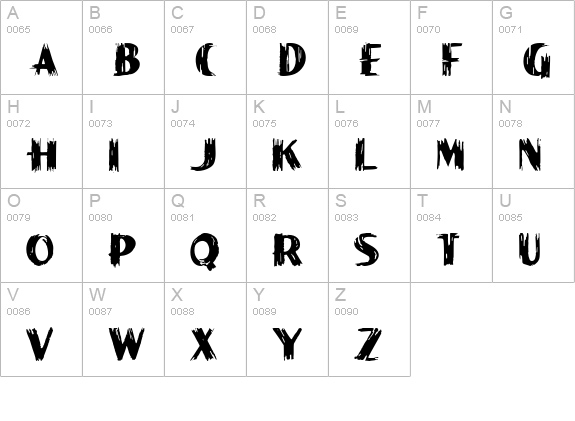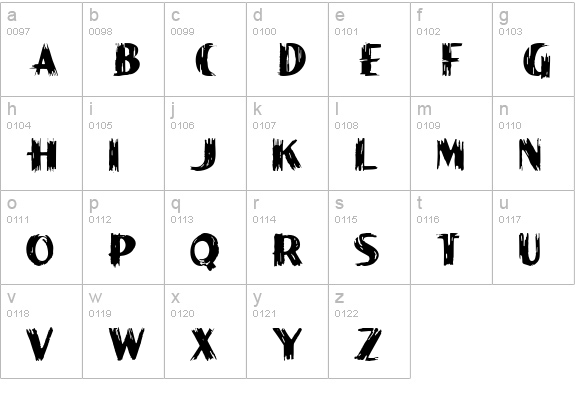
Paint Peel MF Initials Font Details
Introducing Paint Peel MF Initials font, a captivating and artistic display typeface that exudes a unique charm and character. This font features hand-painted brush strokes that give it a distinctive and organic look, perfect for adding a touch of creativity to your designs. With its bold and expressive letterforms, Paint Peel MF Initials font is ideal for headlines, posters, branding, and other creative projects. The best part? Paint Peel MF Initials font is completely free to use! You can easily download this eye-catching font at FontsMarket.com and start incorporating it into your projects right away. Whether you're a seasoned designer looking to add a fresh new font to your collection or a beginner experimenting with typography, Paint Peel MF Initials font is a versatile and stylish choice that will make your designs stand out. Don't miss out on the opportunity to enhance your creations with this stunning and free font!